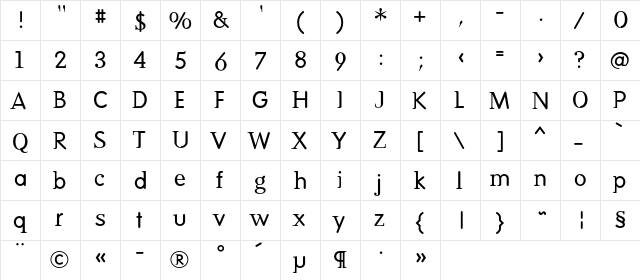
DeadHistoryC Regular
Design Context for DeadHistoryC Typeface
DeadHistoryC takes a measured approach to typography — its balanced proportions and neutral character make it a reliable workhorse for both digital and print work.